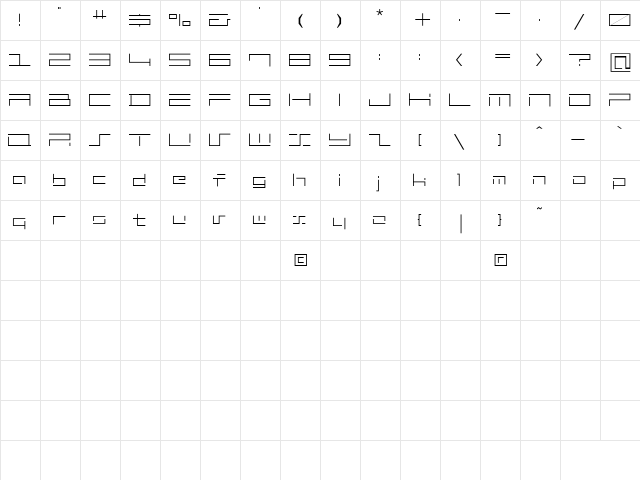
MINIMALHARD2 Regular
Design Context for MINIMALHARD2 Typeface
MINIMALHARD2 is a composed and adaptable typeface that performs quietly and consistently across a wide range of design contexts.